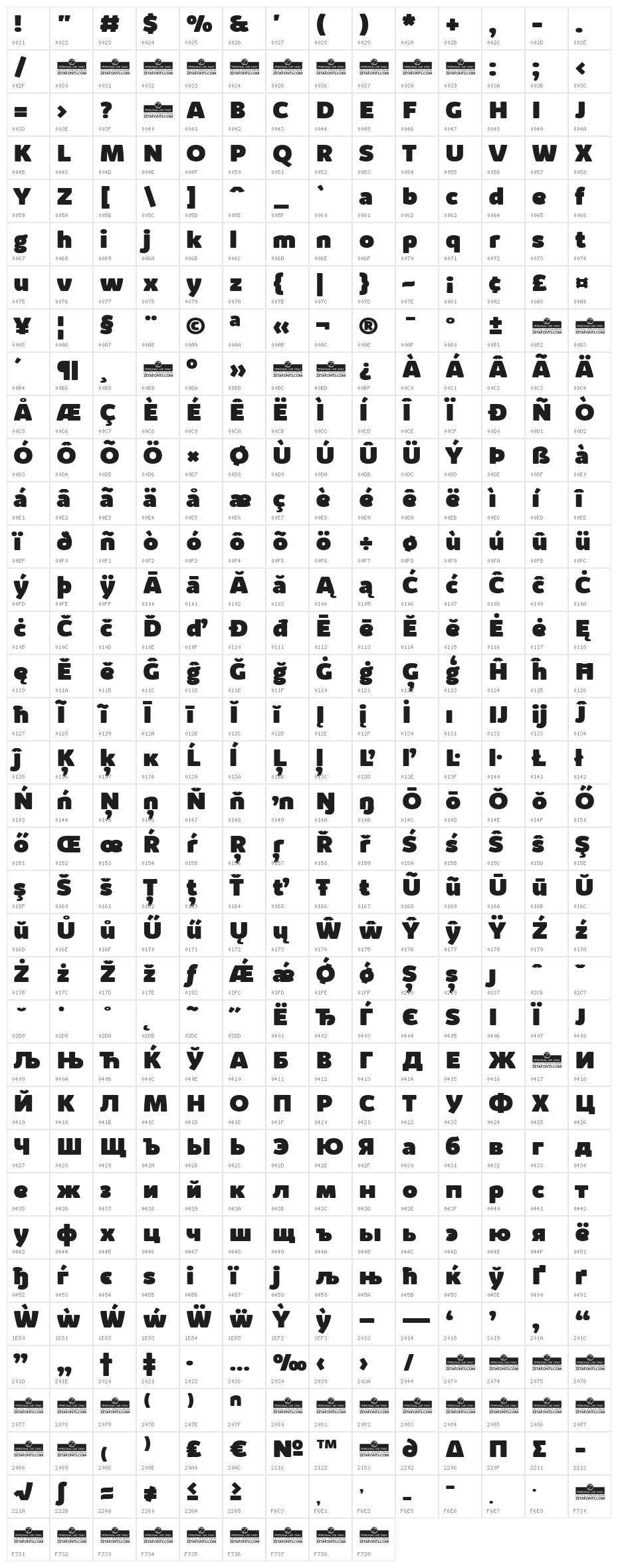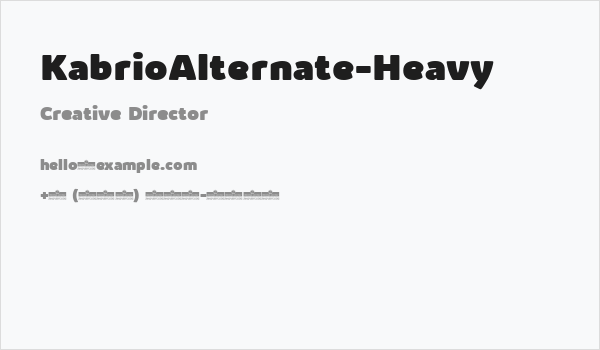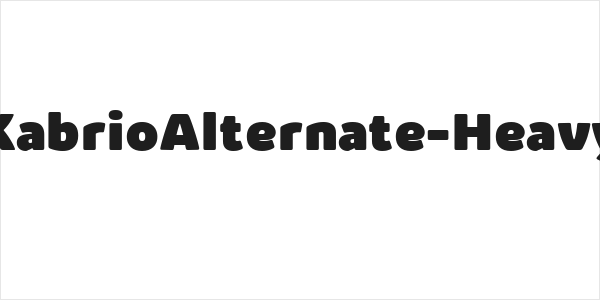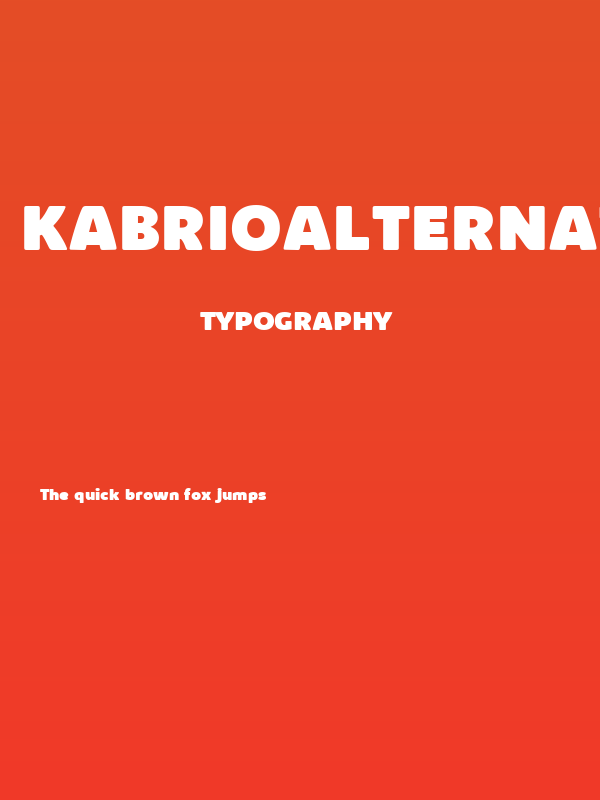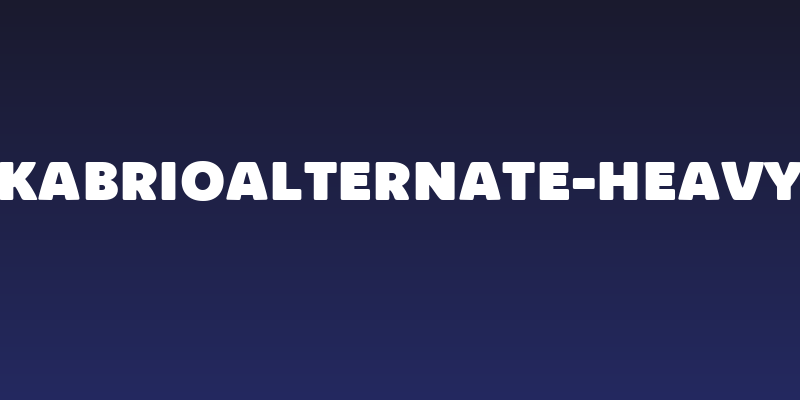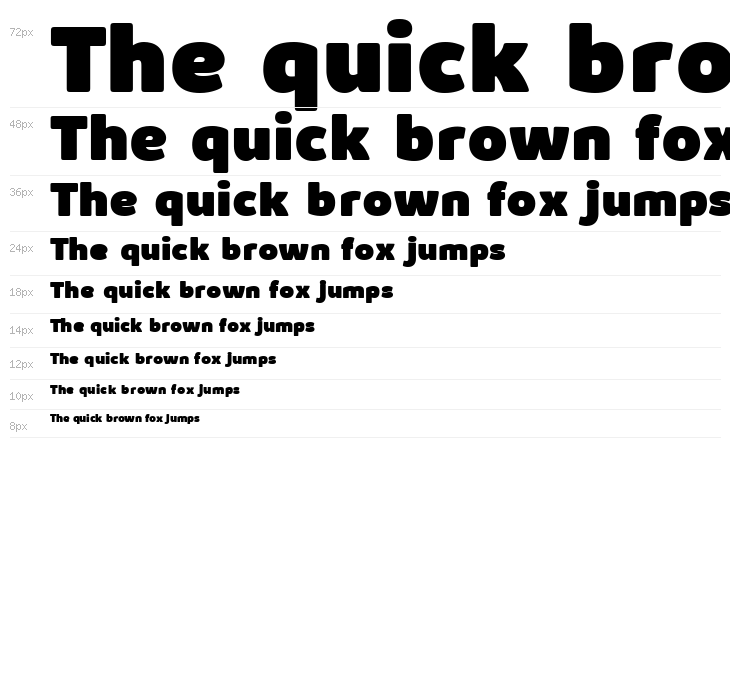
KabrioAlternate-Heavy Font
KabrioAlternate-Heavy Description
This font features a bold and heavy style with rounded edges, giving it a friendly and approachable appearance. The uppercase and lowercase letters maintain a consistent thickness, providing a uniform look across all characters. The numbers and special characters are designed to match the boldness of the alphabet, ensuring a cohesive visual style. The font's design is modern and playful, making it suitable for a variety of creative applications. Its thick strokes and rounded forms make it highly legible, even at smaller sizes.
| Proposed Projects | Ideal for branding, advertising, posters, and packaging design where a bold statement is needed. |